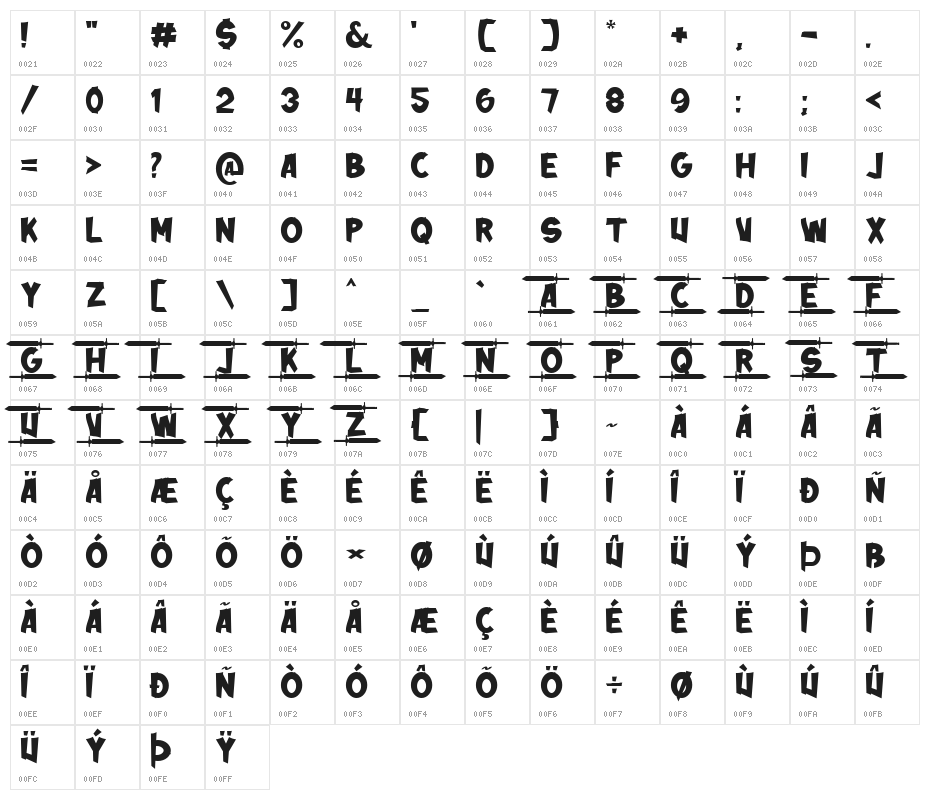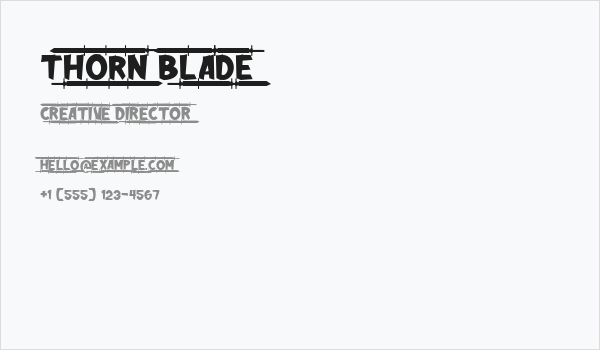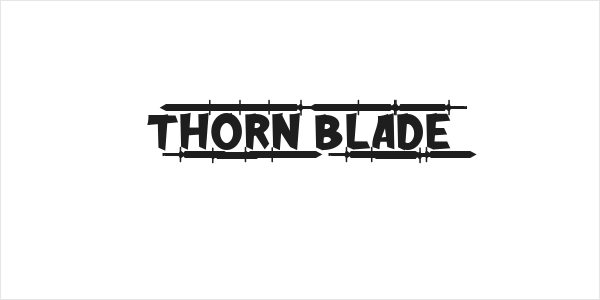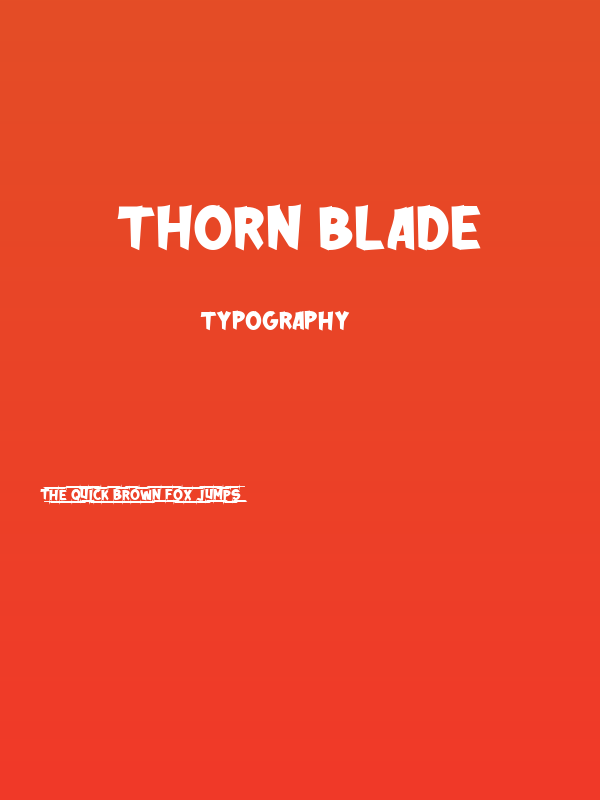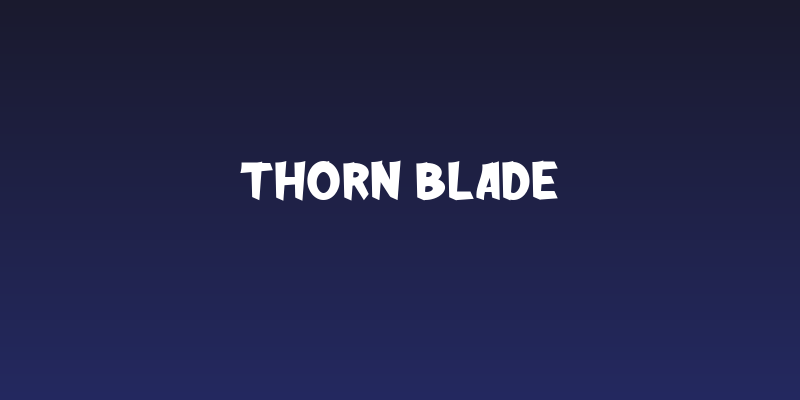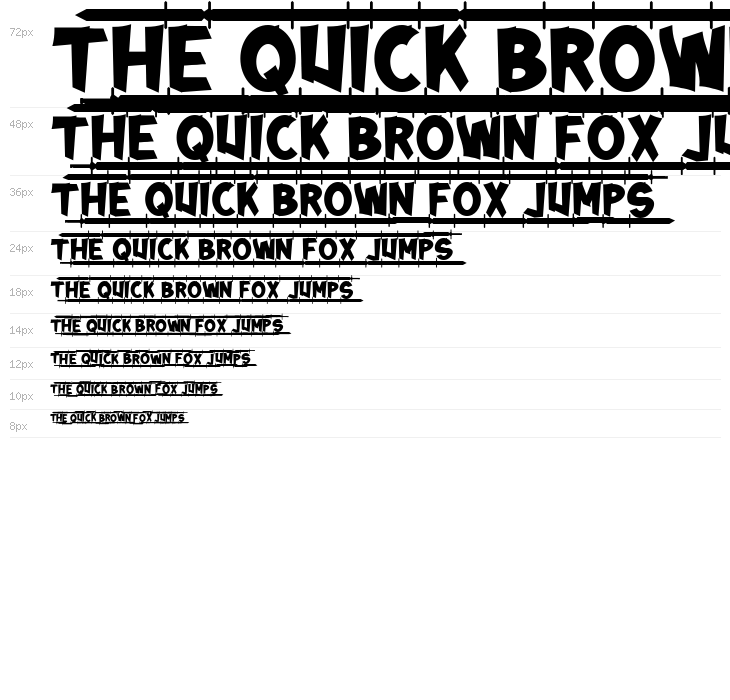
Thorn Blade Font
Thorn Blade Description
This font exudes a rugged and edgy aesthetic, characterized by its sharp, angular strokes and bold presence. Each letterform appears as if it has been carved or slashed, giving it a dynamic and aggressive feel. The uppercase letters are particularly striking, with exaggerated serifs and pointed edges that create a sense of movement and intensity. The numbers and special characters maintain this theme, ensuring consistency across the typeface. This font is designed to capture attention and convey a sense of strength and defiance.
THORN-BLADE UPPERCASE
THORN-BLADE LOWERCASE
THORN-BLADE OTHER CHARS
| Proposed Projects | Ideal for projects requiring a bold statement, such as posters, album covers, or branding for extreme sports and adventure themes. |